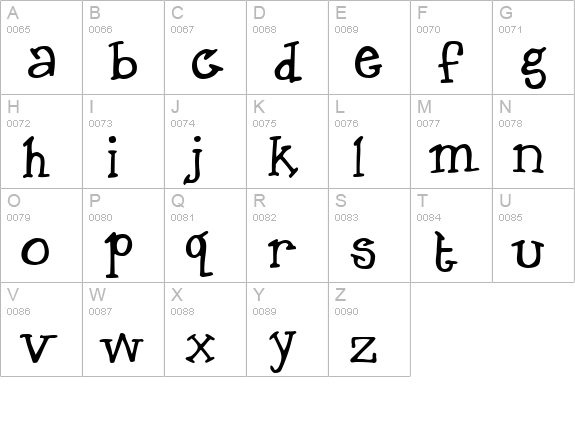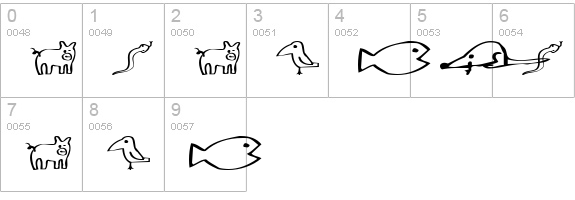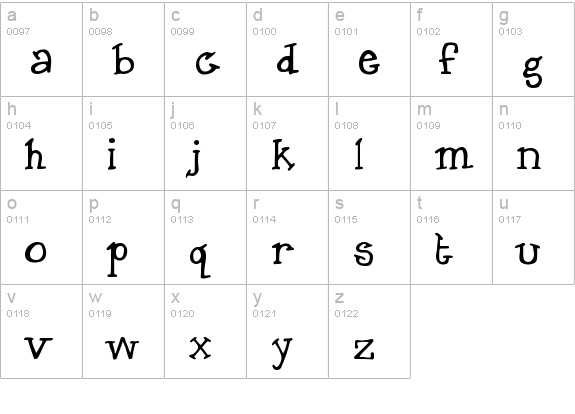
Chigger Font Details
Introducing Chigger font, a bold and modern typeface that exudes sophistication and style. With its sleek lines and elegant curves, Chigger is the perfect choice for a wide range of design projects, from logos to branding to social media graphics. This versatile font is sure to make a statement and elevate your designs to the next level. Whether you're designing a sleek website or creating eye-catching marketing materials, Chigger is the perfect choice to help you stand out from the crowd. Best of all, Chigger font is available for free download at FontsMarket.com. So why wait? Add this stunning typeface to your collection today and watch your designs come to life!